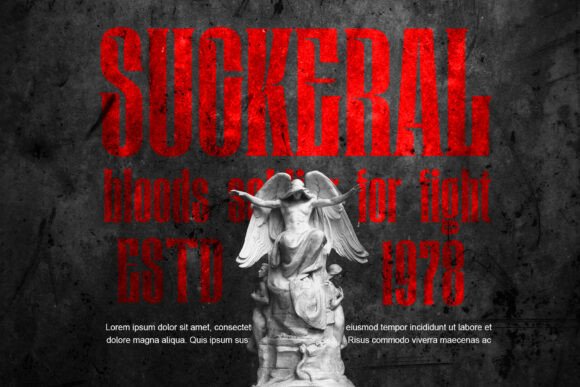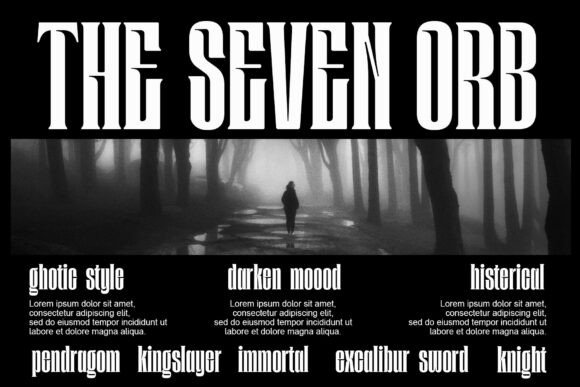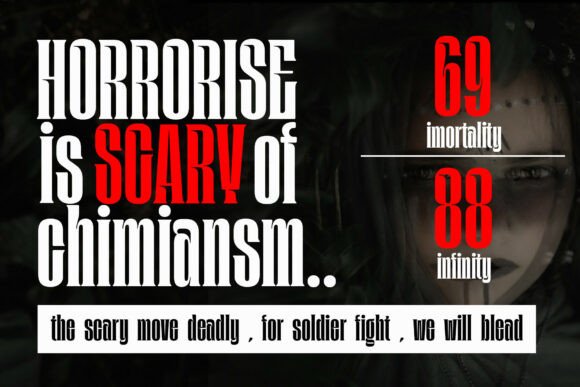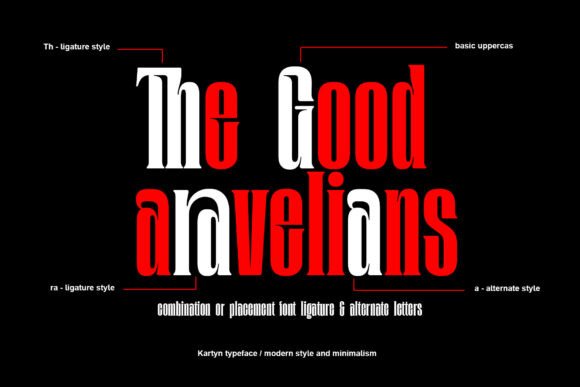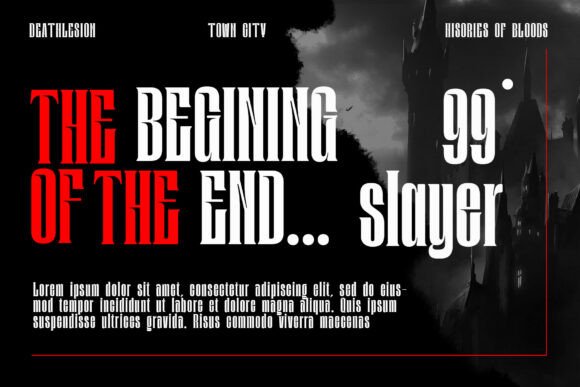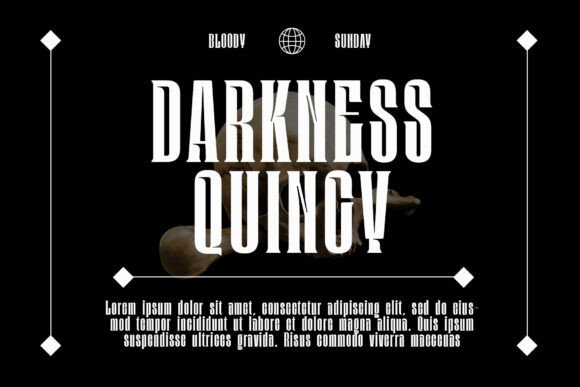
Introduction to Kartyn Font
Introducing Kartyn – a Gothic Cinematic Display Font designed to imbue your creations with a dramatic, cinematic ambiance.
Elegantly bold, Kartyn manifests a dark yet sophisticated aura to impose a strong visual dominance over your designs It exhibits towering proportions, compressed forms and precise serif details for an impactful presence in any project.